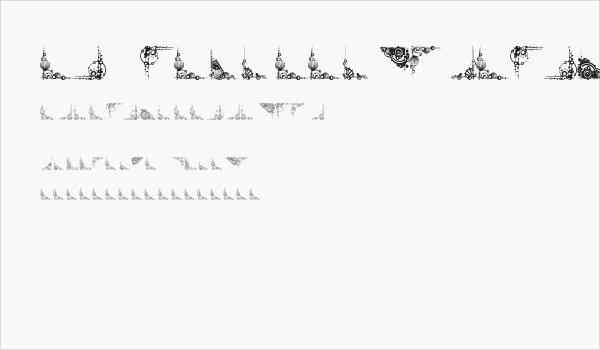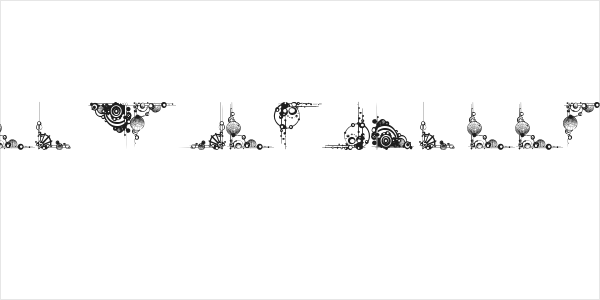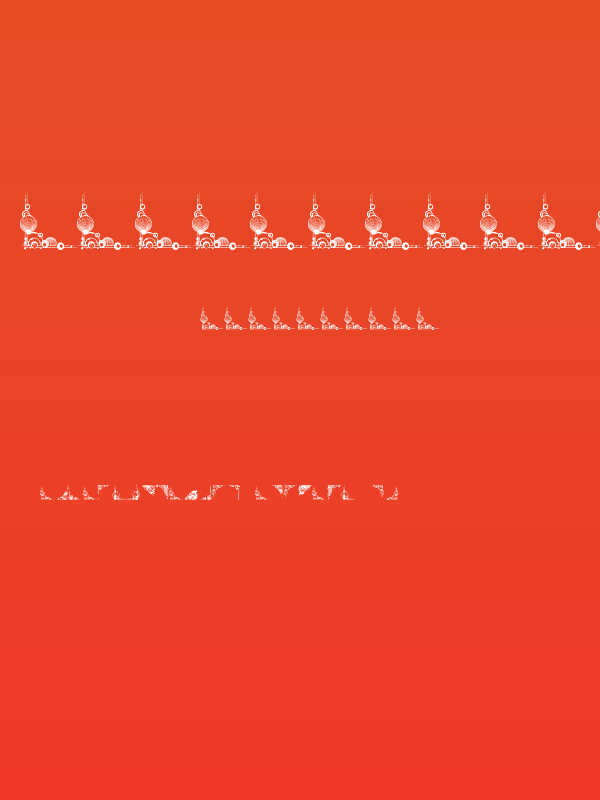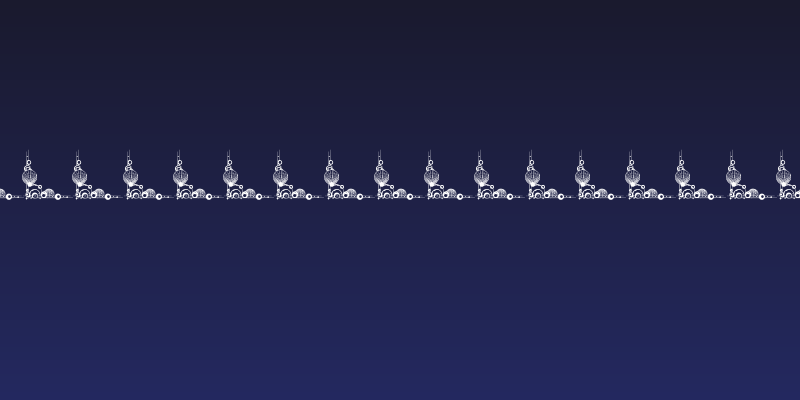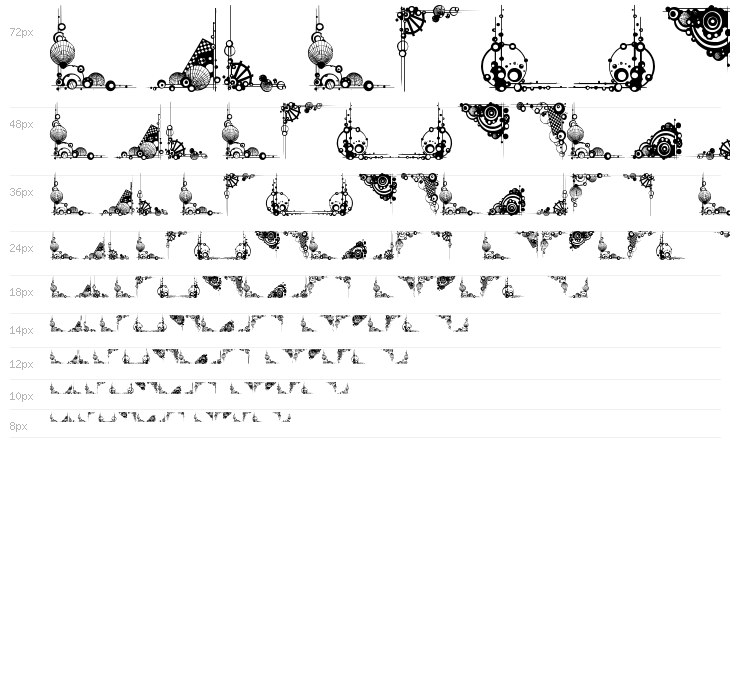
Vintage Decorative Corners 27 Font
Vintage Decorative Corners 27 Description
Highly ornamental and intricate set of decorative corner elements featuring vintage, steampunk-inspired motifs with gears, curls, and mechanical flourishes. Each character is represented by a unique corner or border embellishment rather than a traditional letterform.
| Overall Style | Vintage, Decorative, Steampunk |
| Use Case | Borders, Frames, Decorative accents |
| Proposed Projects | Invitations, certificates, book covers, vintage posters, scrapbooking, decorative borders. |